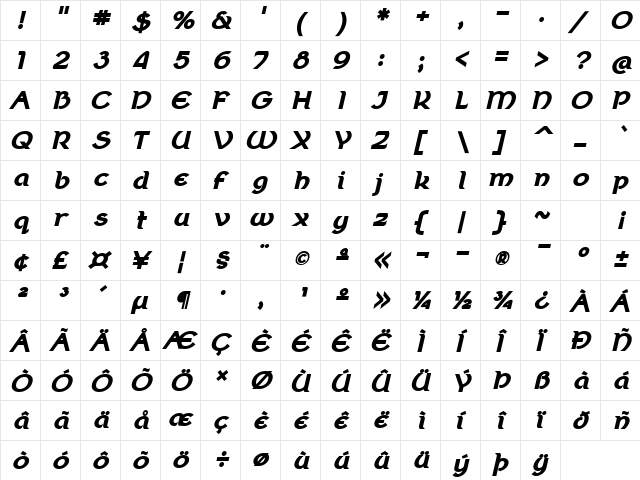
Berenika Bold Oblique
Design Context for Berenika Typeface
Berenika offers clean, dependable letterforms without strong stylistic allegiance, making it a practical choice for designers who need flexibility. Its italic angle brings a sense of urgency and motion to the letterforms. The heavy weight commands attention and anchors typographic hierarchies.
Pro Tip: Use Berenika for emphasis, pull quotes, and subheadings where its slanted energy can add rhythm to the layout.